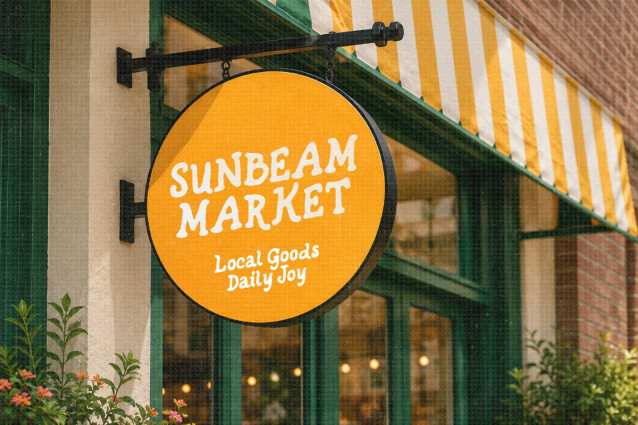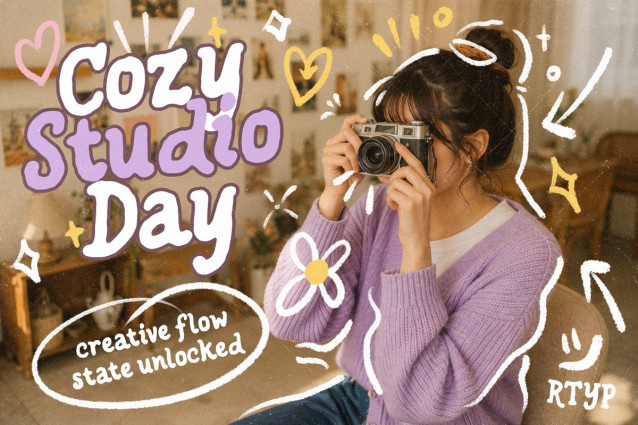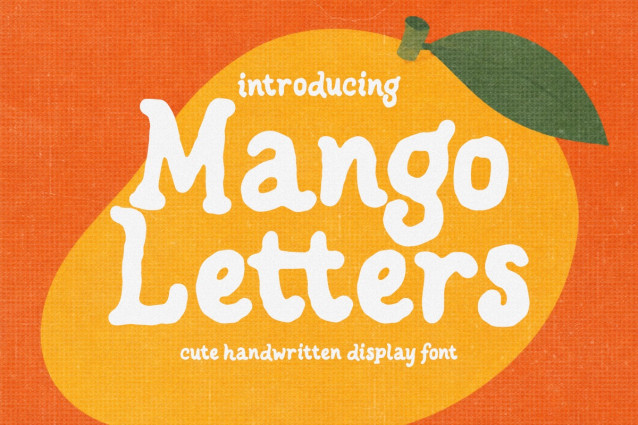
RT Mango Letters Font
RT Mango Letters Font is an organic handwritten typeface with fluid strokes and a whimsical, “handmade” feel. It’s designed for creators who want a personal touch in their branding, from boutique logos to organic labels.
Its natural strokes make it a great fit for social media graphics and any project that needs a warm, sincere personality. It’s the perfect choice for moving away from “perfect” geometry toward something that feels real and full of character.